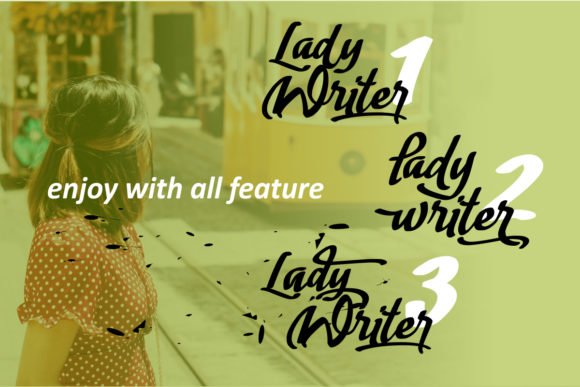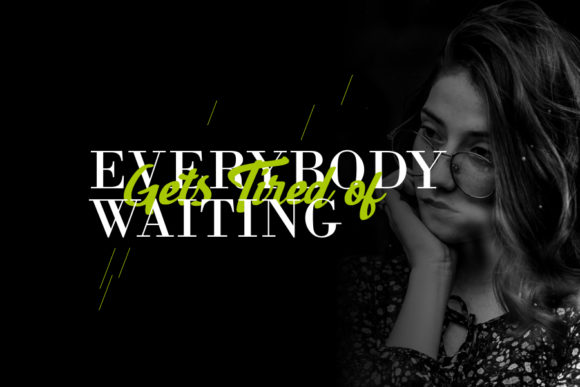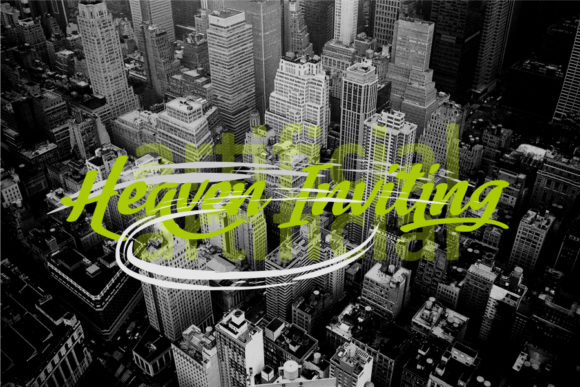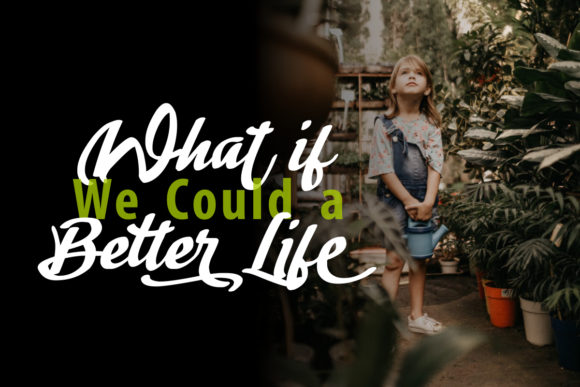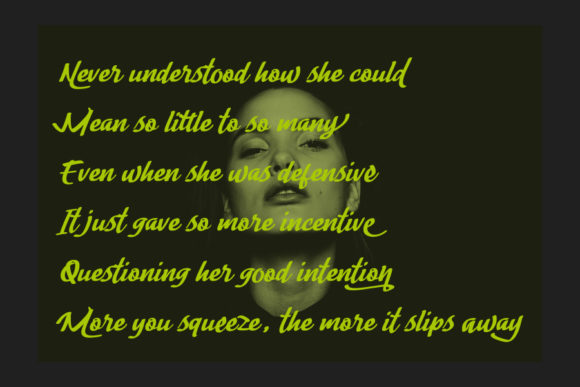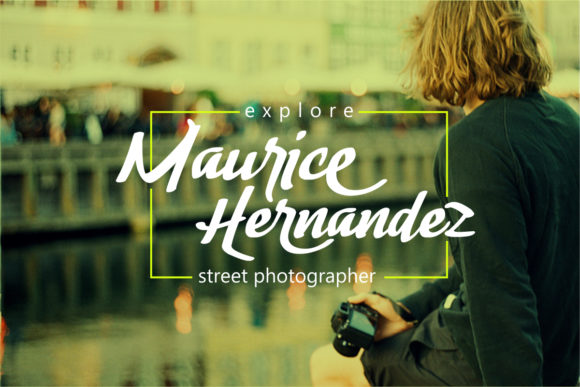
Introduction to Lady Writer Font
Lady Writer is a strong and cool script font with a modern vibe.
Get inspired by its unique style .
Key Features of Lady Writer Font
Why Choose Lady Writer Font?
Lady Writer Font offers exceptional quality and versatility, making it a valuable addition to your design toolkit. Whether you’re creating for personal projects or commercial use, Lady Writer Font delivers professional results.